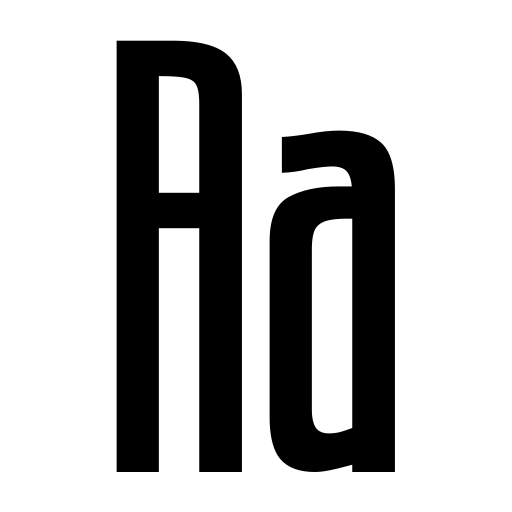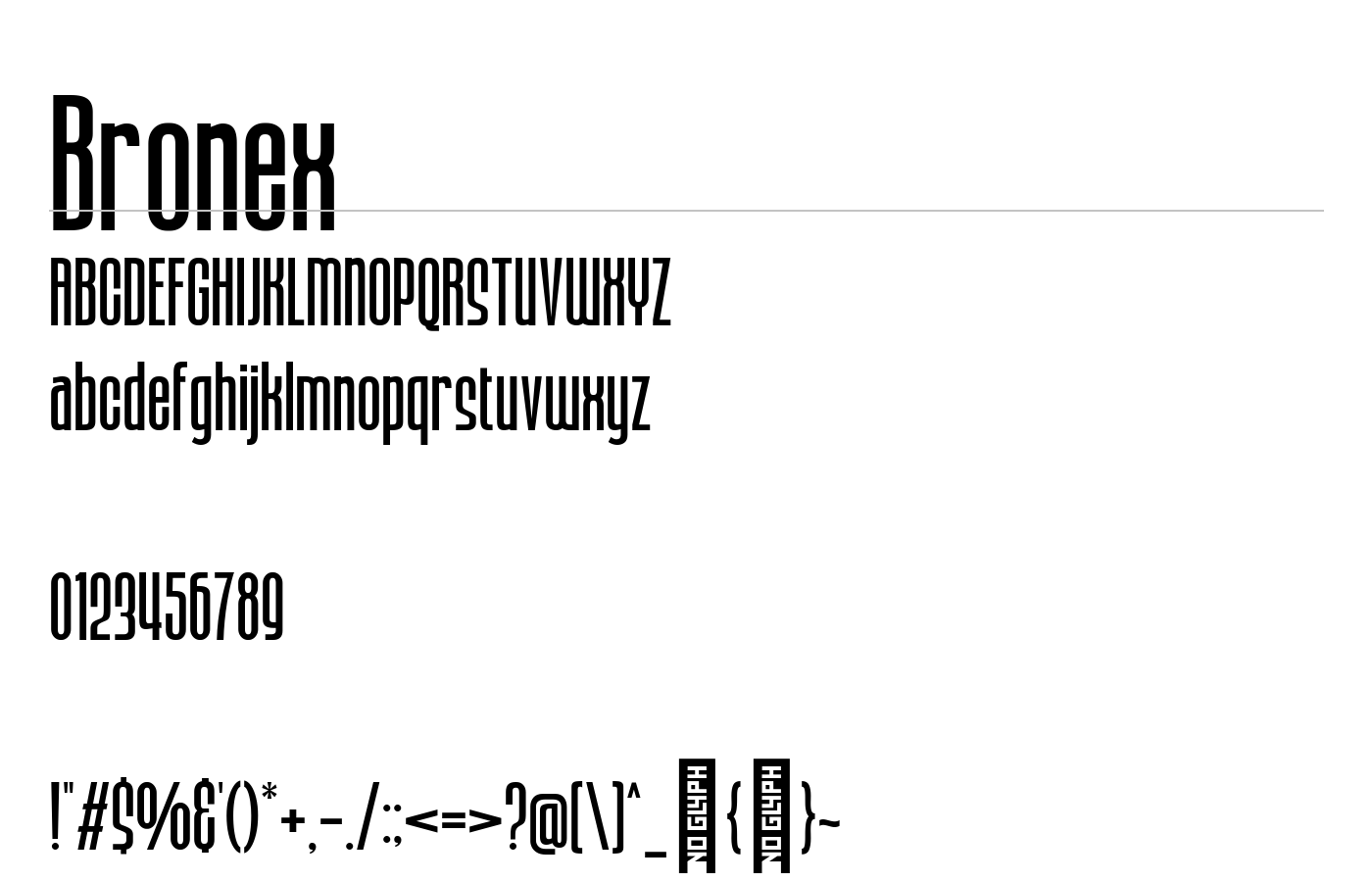
Bronex is a narrow, tall sans serif font with a modern, clean, and slightly futuristic feel. Its condensed letterforms and uniform stroke weight create a sleek and elegant look, making it ideal for headlines, branding, and display use where a contemporary and striking presence is desired. This font works well in fashion, editorial, and tech-oriented projects that need a bold, distinctive style with good readability.
Bronex Font
About Bronex Font
| Designer | Kana Widana |